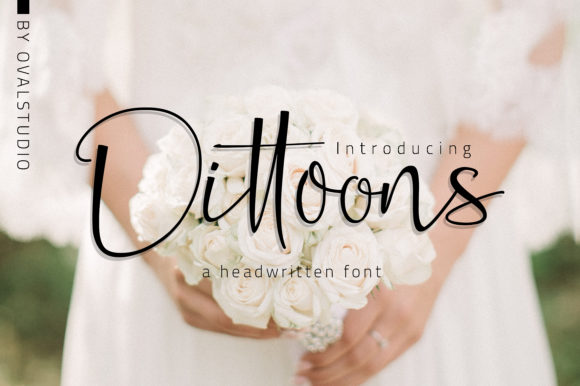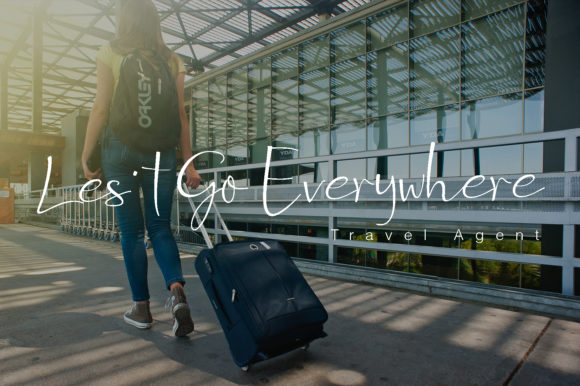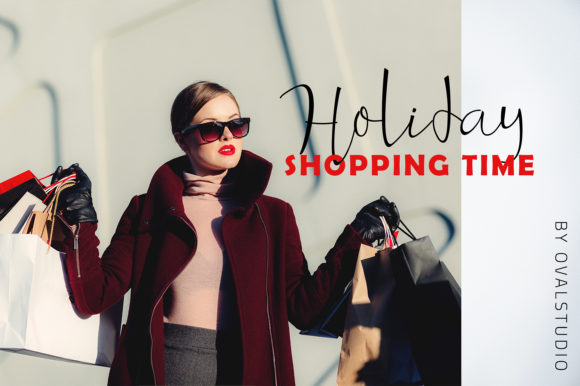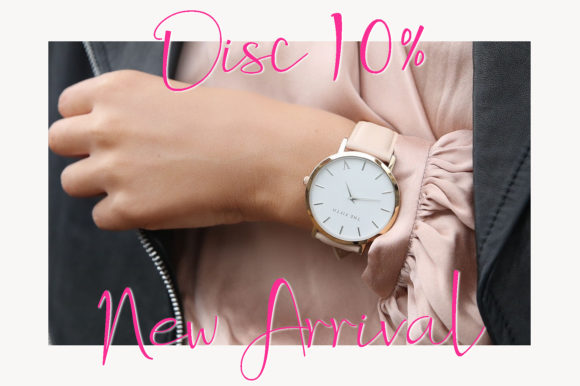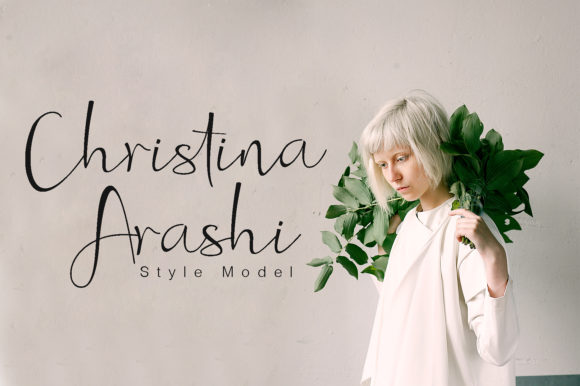
Dittoons Font
About Dittoons Font
Dittoons is a modern script font featuring elegantly natural style. Use it for any design project that requires a personalized appearance!